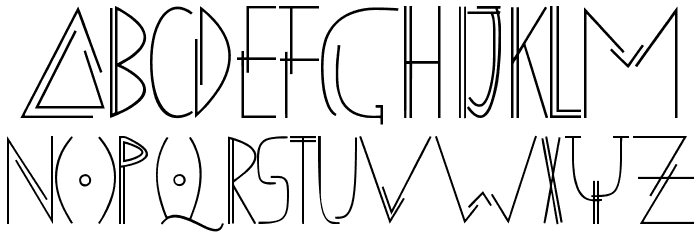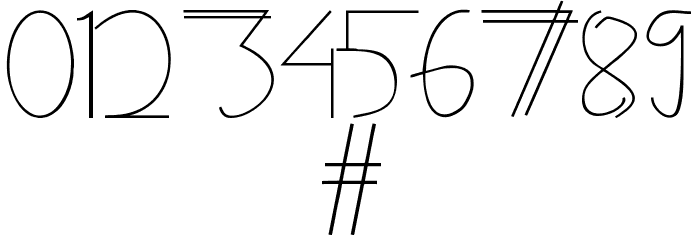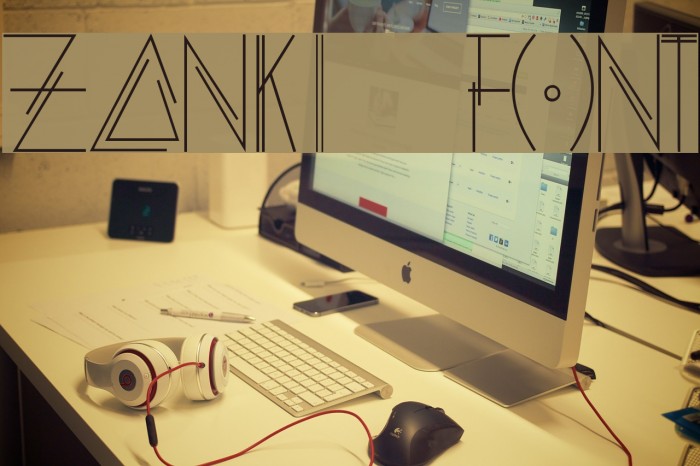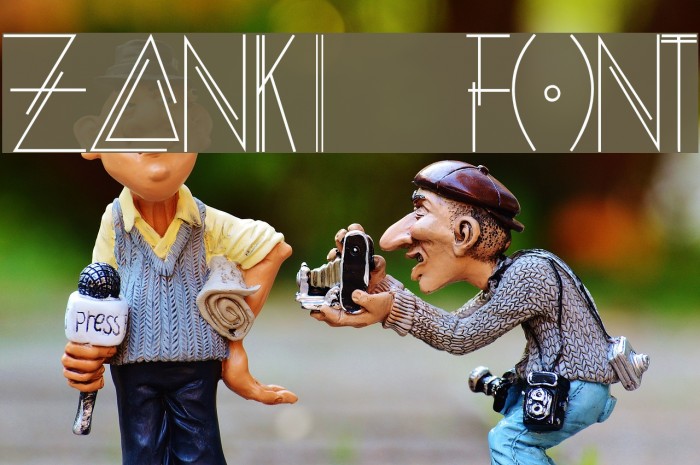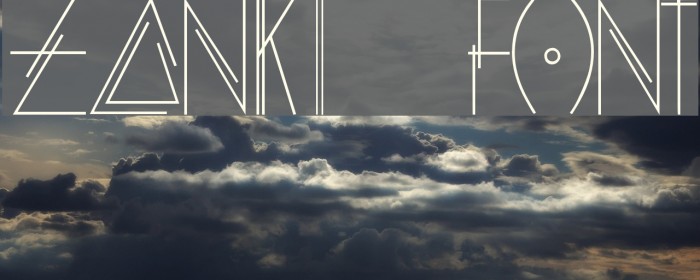
ZANKI Font
This font features a unique and modern geometric design with a distinct art deco influence. The characters are composed of thin, elegant lines and sharp angles, creating a sophisticated and stylish appearance. The uppercase letters are particularly striking, with some incorporating triangular and circular elements that add a decorative flair. The numerals and special characters maintain the same geometric style, ensuring consistency across all glyphs. This font's clean lines and contemporary aesthetic make it suitable for a variety of creative applications.
A modern geometric font with art deco influences and elegant line work.
- Proposed Projects: Ideal for branding, logos, posters, and editorial design where a modern and stylish look is desired.